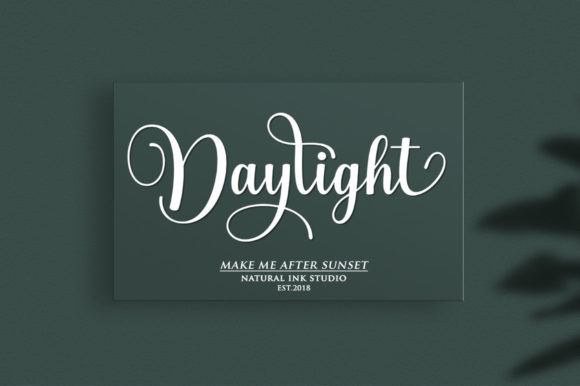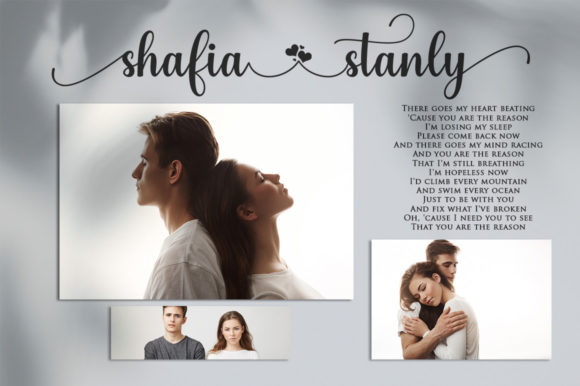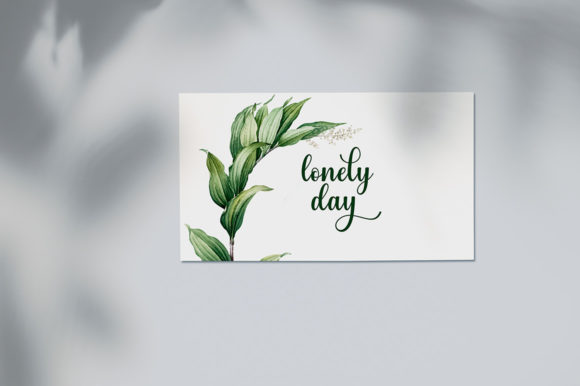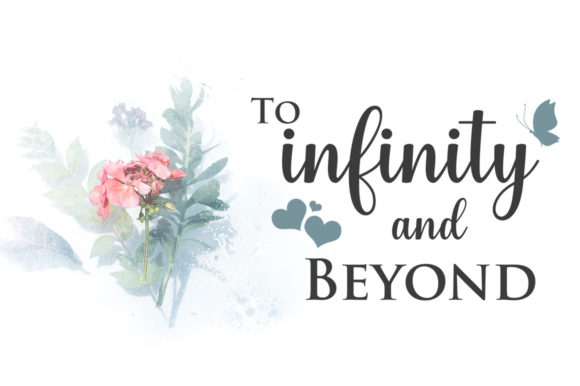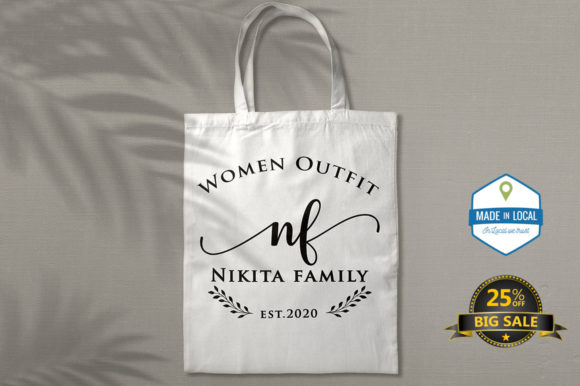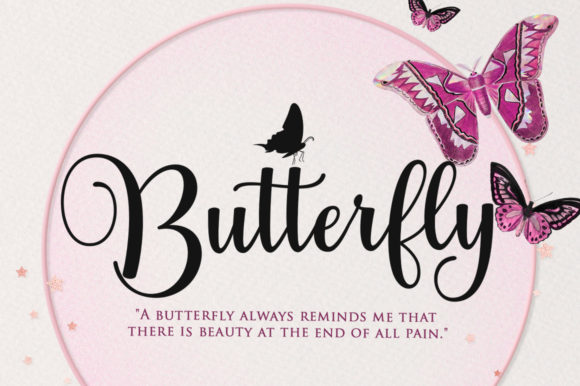
Daily Mail Font
About Daily Mail Font
Daily Mail Script is a modern calligraphy design, including Regular. This font is casual and beautiful with swash. Can be used for various purposes. such as logos, product packaging, wedding invitations, branding, headlines, signage, labels, signatures, book covers, posters, quotes, and more.